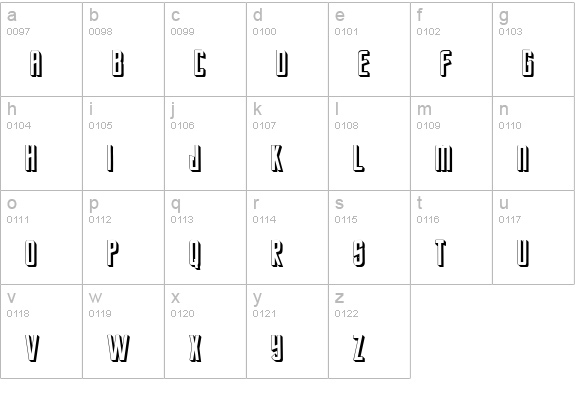
Star Trek Future Font Details
Introducing Star Trek Future font, a captivating and futuristic typeface that will transport you to the outer reaches of the galaxy. Inspired by the iconic Star Trek franchise, this font embodies the spirit of adventure, exploration, and the limitless possibilities of the future. Star Trek Future font is meticulously crafted to capture the essence of the Star Trek universe. With its sleek and futuristic design, it radiates a sense of technological advancement, making it the perfect choice for any science fiction or futuristic-themed project. Whether you're creating a poster for a sci-fi movie, designing a futuristic logo, or adding a touch of intergalactic flair to your website, Star Trek Future font will elevate your designs to new heights. But what sets Star Trek Future font apart is that it is not only visually stunning, but also freely available to download at FontsMarket.com. We believe that creativity should be accessible to all, and that's why we have made this extraordinary font available for everyone, completely free of charge. Now, you can bring the Star Trek experience to your designs without breaking the bank. With Star Trek Future font, you can unleash your imagination and boldly go where no designer has gone before. Its versatile nature allows for endless creative possibilities, as you can easily customize the font to suit your specific needs. From adjusting the letter spacing to experimenting with different sizes and colors, Star Trek Future font empowers you to bring your vision to life. So, whether you're a die-hard Star Trek fan or simply appreciate the allure of futuristic design, Star Trek Future font is the perfect addition to your font library. Download it for free at FontsMarket.com today and embark on a journey into the depths of the cosmos. May your designs be as vast and infinite as the universe itself.